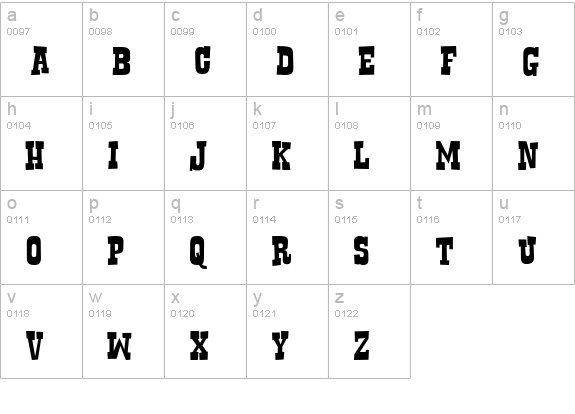
Rustler font is a bold and rugged typeface that exudes a sense of adventure and the wild west. Its strong, angular letterforms are reminiscent of vintage wanted posters and cowboy branding irons. This versatile font is perfect for adding a touch of ruggedness and authenticity to your designs. With its unique character and charm, Rustler font is sure to make a statement in any project. Whether you're designing a logo for a cowboy-themed restaurant or creating eye-catching headlines for a western-themed event, Rustler font will capture the essence of the wild west. What's even better is that Rustler font is free! That's right, this amazing font is freely available to download at FontsMarket.com. So you can add this versatile and distinctive typeface to your font collection without breaking the bank. With Rustler font, you have the freedom to explore endless creative possibilities. Its wide range of alternates and ligatures allows you to customize and play with various letter combinations, giving your designs a unique and personalized touch. So why wait? Download Rustler font today from FontsMarket.com and unleash your creativity with this bold and adventurous typeface. Whether you're working on a poster, a branding project, or a website design, Rustler font will bring a touch of the wild west to your work and make it stand out from the crowd.